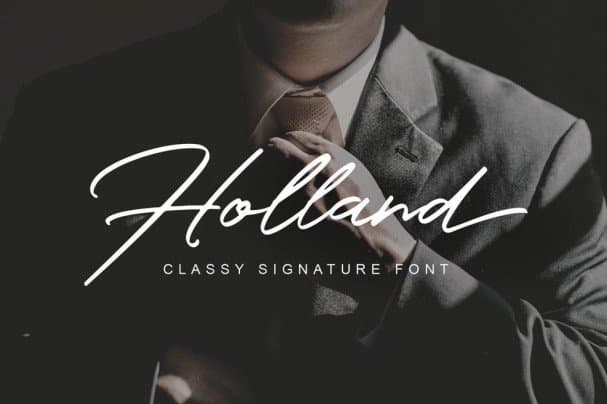
Holland Classy Font
Holland Classy Font is categorized as a classy font. It gives the impression of a swashes font mockup in a font-view and is commonly used for its text generator feature.
This font is multipurpose and flexible, make its miles had to inform with a few unique typefaces to create a few suitable assignments reminiscent of marriage ceremony invitation, antique format.